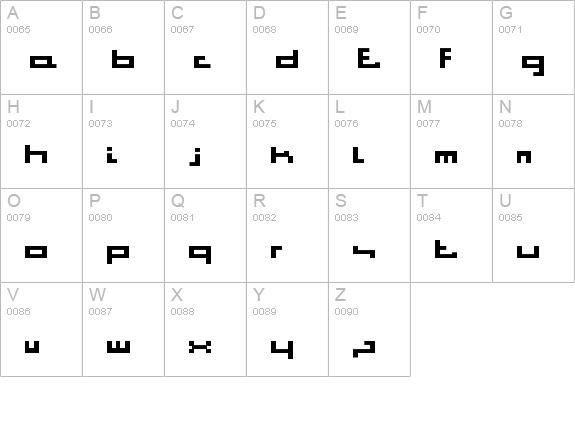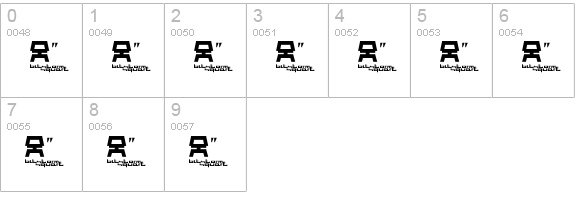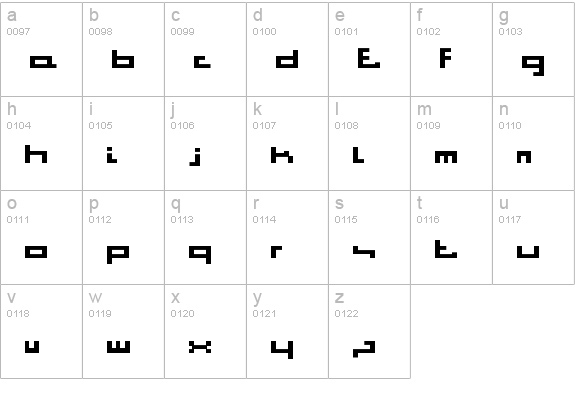
Bitstorm SQUARE Font Details
Introducing Bitstorm SQUARE font - a modern and sleek typeface that brings a bold and futuristic edge to any design project. With its sharp lines and square shapes, this font exudes a sense of strength and sophistication that is perfect for branding, logos, headlines, and more. But here's the best part - Bitstorm SQUARE font is completely free to download! That's right, you can access this stylish font at no cost on FontsMarket.com. Whether you're a graphic designer, a business owner, or just someone looking to add a touch of contemporary flair to your creations, Bitstorm SQUARE font is a versatile and eye-catching choice that won't break the bank. So why wait? Elevate your designs with Bitstorm SQUARE font today and unleash your creativity with this striking typeface that is both impactful and accessible. Download it for free now at FontsMarket.com and start making a bold statement with your typography.